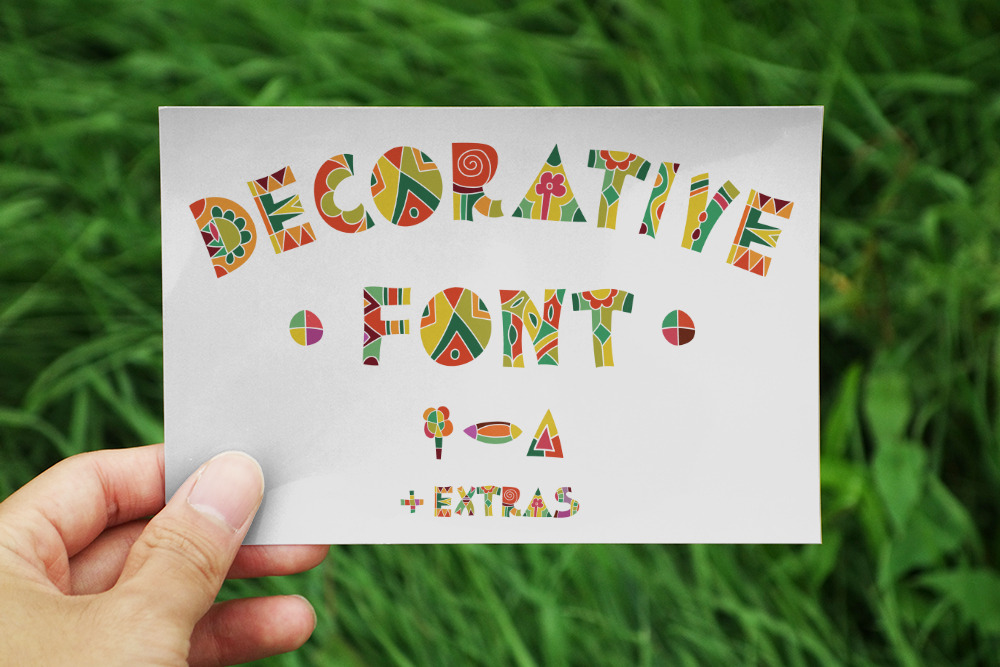
Decorative Fun Font
Thanks for checking out my decorative font! A fabulously fun font with tons of energy allows you to create beautiful hand-made typography in an instant. It is guaranteed to make your text stand out - perfect for logos, printed quotes, invitations, cards, product packaging, headers and whatever your imagination holds.